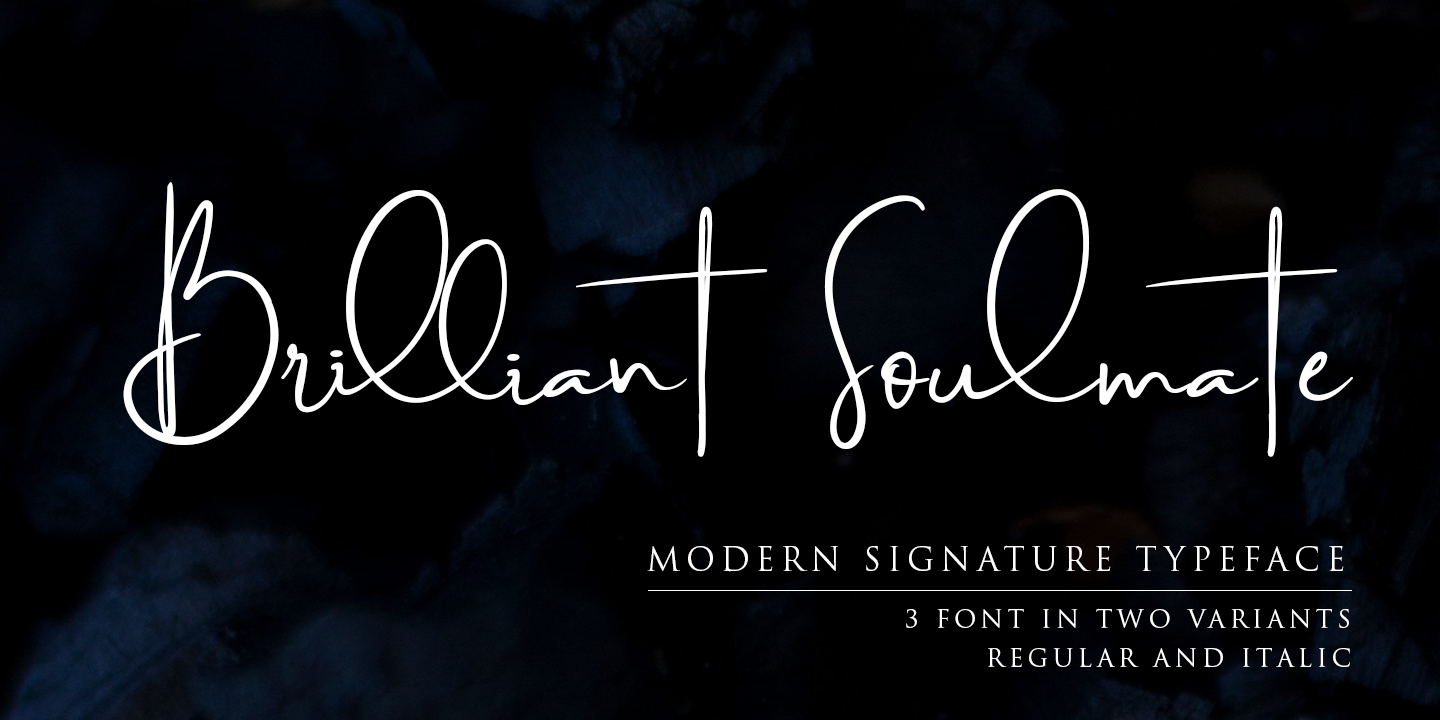
Brilliant Soulmate Font is ideal for romantic wedding invitations, heartfelt love letters, soulful relationship coaching, intimate greeting cards, passionate love stories, romantic jewelry branding, and deeply connected partnership projects.
What makes Brilliant Soulmate Font exciting is its luminous romance and soul-deep connection, featuring radiant letterforms that capture the essence of true love while delivering heartwarming visual brilliance and authentic romantic intimacy.
The Brilliant Soulmate Font family includes Light, Regular, Medium, Bold, and Heavy weights, plus romantic variants and heart-inspired alternates that enhance the font's loving character and soulmate possibilities.
Brilliant Soulmate Font Free Download embodies the radiant beauty of true love and the profound connection of destined partnerships through luminous typography design. This heartwarming typeface captures the brilliant sparkle of soul connections and the deep intimacy of authentic romantic love, creating a luminous visual language that speaks to lovers and romantic souls who value genuine connection, passionate devotion, and the transformative power of finding one's true soulmate. The font's brilliant character and romantic appearance make it perfect for wedding professionals, relationship coaches, and romantic brands that want to communicate love, connection, and the radiant appeal of soulmate partnerships.
Wedding planners and relationship professionals consistently choose Brilliant Soulmate Font for projects that require authentic romantic credibility and heartwarming visual appeal. The typeface's luminous construction and loving personality make it exceptionally effective for wedding venues, couples therapy practices, and romantic service companies where deep connection and soulmate love are paramount. Each character has been designed with romantic precision to ensure maximum brilliance across all love applications and intimate environments.
The romantic advantages of Brilliant Soulmate Font extend beyond its loving appeal to include practical functionality for diverse relationship applications. The font maintains excellent readability in intimate settings while delivering the distinctive character that creates meaningful romantic connections and resonates with audiences seeking authentic soulmate love. Its comprehensive character set includes heart symbols and romantic elements that make it particularly suitable for love documentation and intimate communication.
Wedding venues, relationship coaches, and romantic service companies frequently incorporate Brilliant Soulmate Font into their brand identity systems because of its ability to instantly convey romantic authenticity and soulmate sophistication. The typeface's brilliant aesthetic helps establish emotional trust while appealing to couples who value true love, deep connection, and the radiant experiences that come from authentic soulmate partnerships and brilliant romantic devotion.